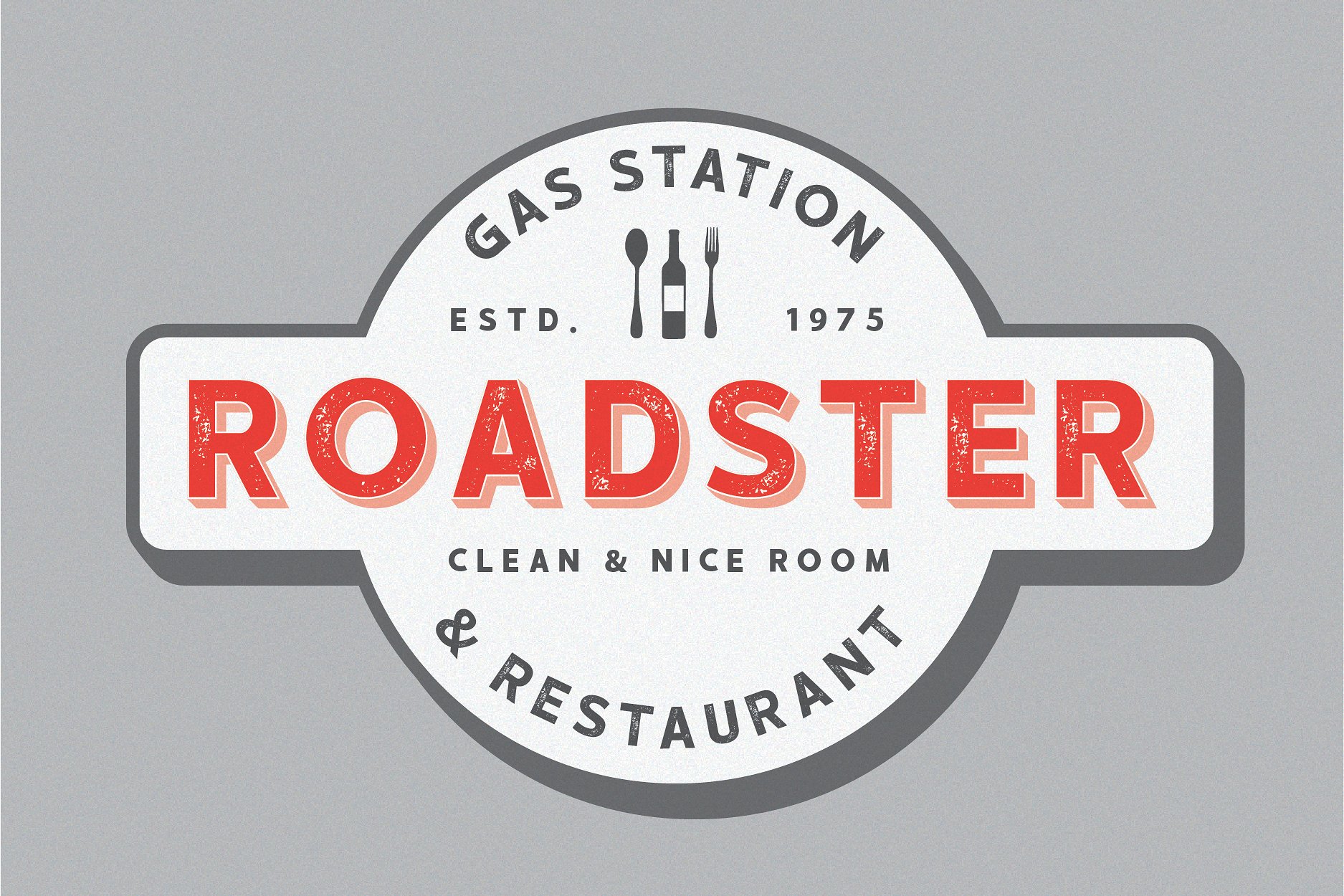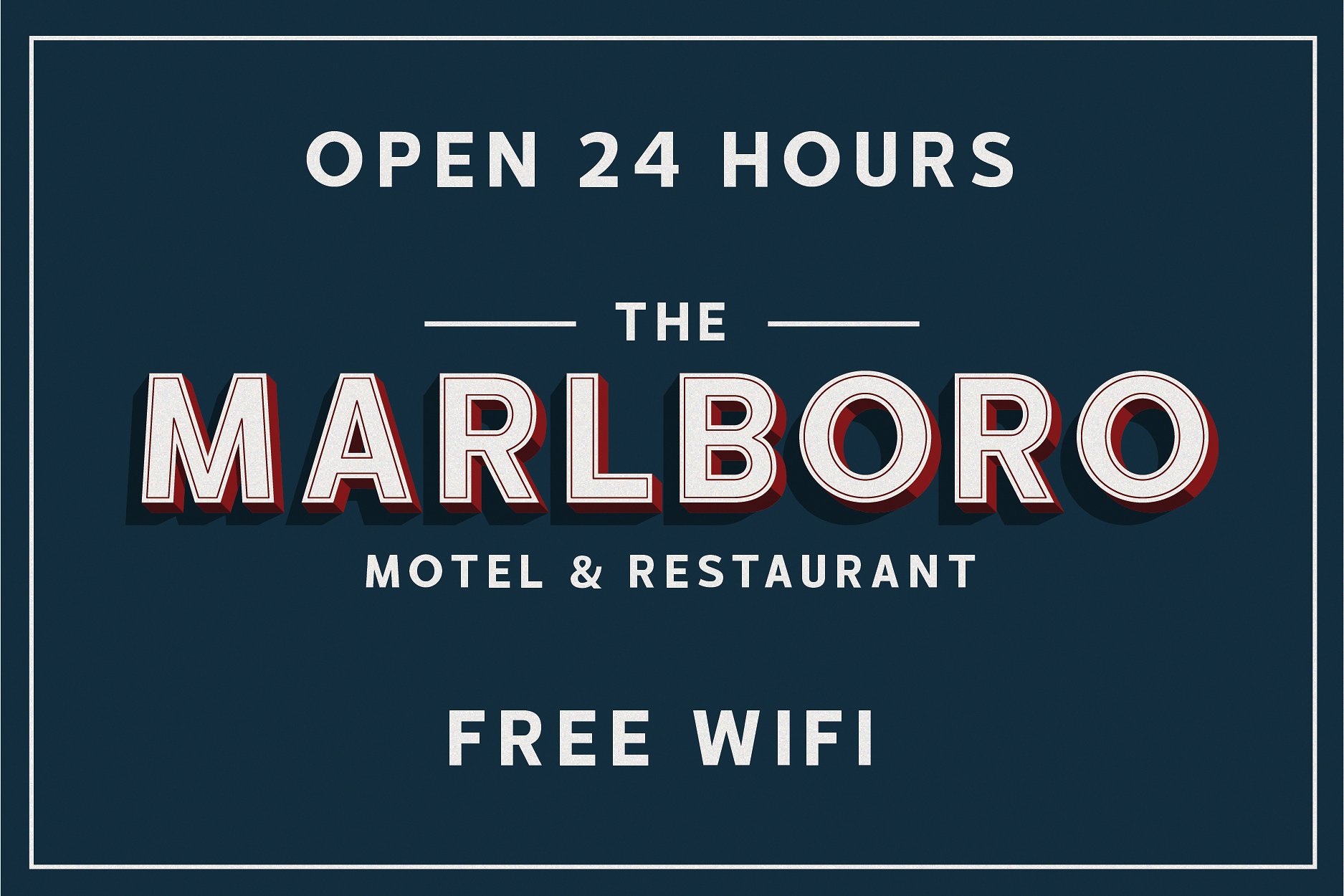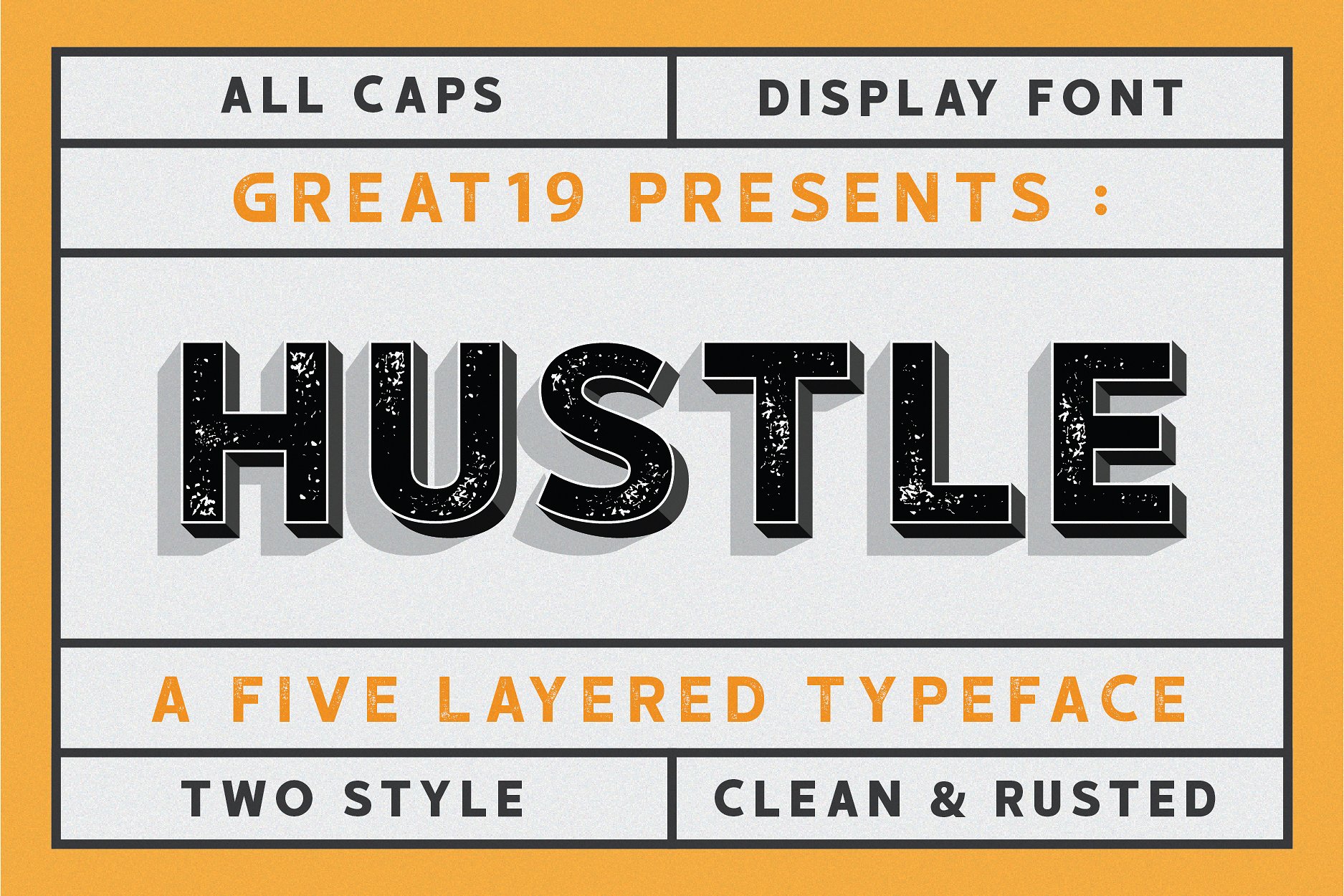
HUSTLE Typeface
Hustle is a display typeface with 5 layered system, with 2 style ( clean & rustic ) for the top layer. with 5 layers system this font have many possibilities variations. with the rustic top layer, Hustle have a nice vintage retro industrial feel but also have a modern feel with the clean top layer.
This font is perfect for tittle, headline, logo, badge, emblem, poster, sign, display, label and packaging design. this 5 style font is perfectly matched each other with the hustle 5 rustic and hustle 6 clean as the secondary text font. that means this font is useful.